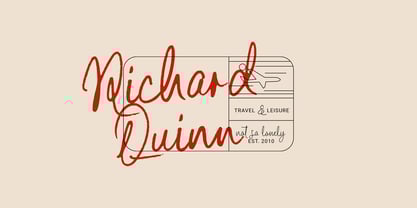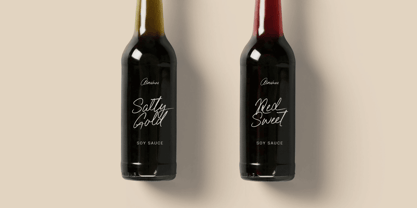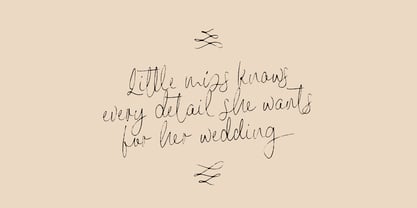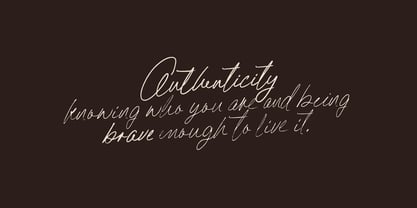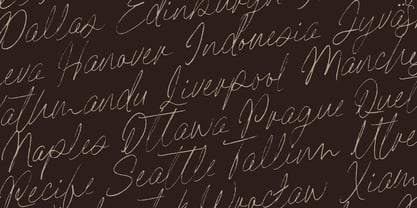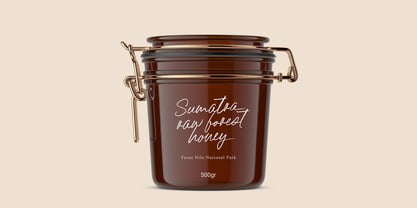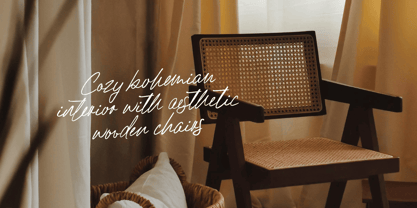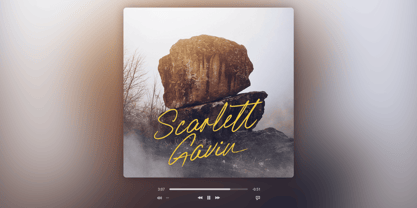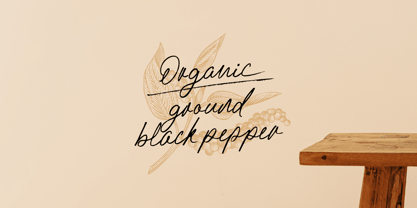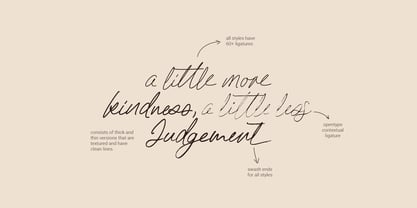
Almahera
The Almahera Font Family was designed by Eko Kurniawan and published by Atom. Almahera contains 16 styles and family package options.
Almahera is a script brush font that combines the beauty of handwriting with the artistic touch of thin brush strokes. With sleek, free-flowing lines, varied strokes, and dynamic brush textures, Almahera exudes an organic, personal, expressive and characterful feel in every letter.
Comes with 16 variations including regular, slant, thick, thin, and also a clean line version. It has more than 500 glyphs and also has contextual alternate features, more than 70 ligatures, and swashes on all lowercase letters in every version of Almahera.
Almahera has a very elegant and authentic appearance but also looks casual. This font is perfect for use in lifestyle and beauty branding designs, wedding invitations, stationery, inspirational quotes, social media content, as well as handmade products and premium packaging. Make your work look special, stand out, and in accordance with its meaning Almahera which means successful and lucky.
Atom is a line from Letteratom created by a young man from a small village in Indonesia named Eko Kurniawan. Since school, he was interested in graphic design and lettering, so both have become his hobbies since then. Starting from a sketch from paper and digitizing the glyphs one by one to create a font with his style. Focus on script fonts and brushes for your design needs.